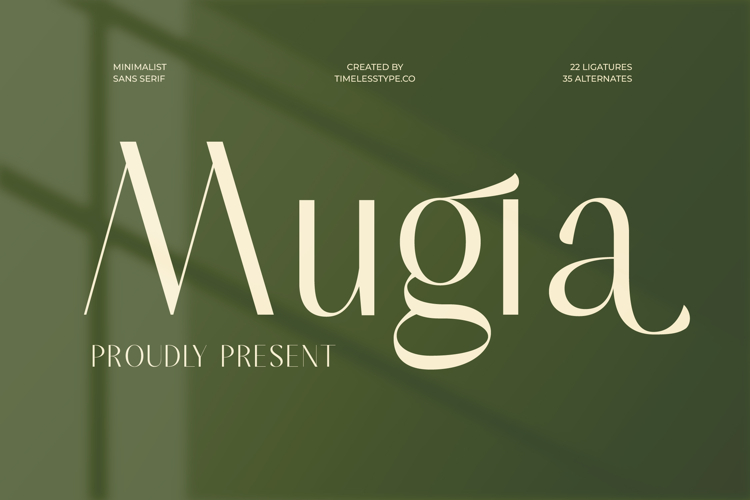
Mugia - Minimalist Sans Serif Font
Discover the epitome of refined typography with Mugia - Minimalist Sans Serif Font, an exceptional typeface designed to imbue your projects with unparalleled elegance. This striking font masterfully blends minimalist sans-serif clarity with sophisticated, high-contrast strokes and subtly expressive curves, creating a visual harmony that is both contemporary and timeless. Its distinctive aesthetic ensures your brand communication stands out with an air of understated luxury and powerful impact.
Unleash limitless creative possibilities with the rich features of Mugia - Minimalist Sans Serif Font. Boasting an impressive collection of 22 ligatures and 35 alternates, this font offers flexible customization. These extensive stylistic options allow designers to craft unique headlines, logos, and complex compositions, ensuring every design element is carefully curated and original. Elevate your design process with its inherent versatility and artistic range.